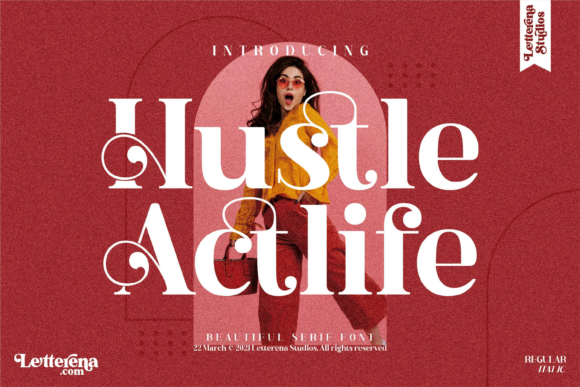
Prepare yourself to be captivated by Hustle Actlife, the font that exudes boldness and exuberance, ready to bring your creative visions to life, and craft designs that strike a chord with your audience.
Hustle Actlife, meticulously crafted by Letterena Studios, is not just another font; it's an experience, an expression of your individuality, and a catalyst for your ideas to take flight. Its remarkable serif design adds a touch of sophistication to your creations, while its playful and energetic nature sparks imagination and breathes life into your designs.
With Hustle Actlife, immerse yourself in a world of boundless possibilities, where your designs take center stage and captivate hearts. Its versatility knows no bounds, effortlessly flowing from captivating headlines to engaging body texts, seamlessly adapting to any project you envision.
Unlock the full potential of Hustle Actlife, a font meticulously crafted to elevate your designs. Its PUA-encoded nature grants you effortless access to a treasure trove of glyphs and swashes, empowering you to add a touch of exclusivity and creativity to your work.
Embrace Hustle Actlife, a font that ignites inspiration and empowers your designs to make an indelible impact. Let its bold strokes and vibrant energy infuse your projects with a personality that resonates with your audience, leaving them spellbound and eager for more.